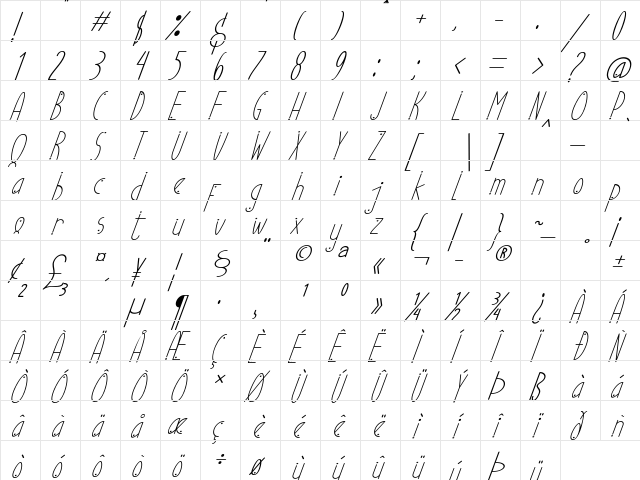
Ubur Ubur with Love alternatif4 Italic
| Designer | Aldedesign 2018 |
Design Context for Ubur Ubur with Love alternatif4 Typeface
Ubur Ubur with Love alternatif4 offers clean, dependable letterforms without strong stylistic allegiance, making it a practical choice for designers who need flexibility. Its italic angle brings a sense of urgency and motion to the letterforms.
Pro Tip: Try Ubur Ubur with Love alternatif4 for annotation and caption copy alongside an upright companion — the contrast in angle creates a dynamic but ordered typographic system.